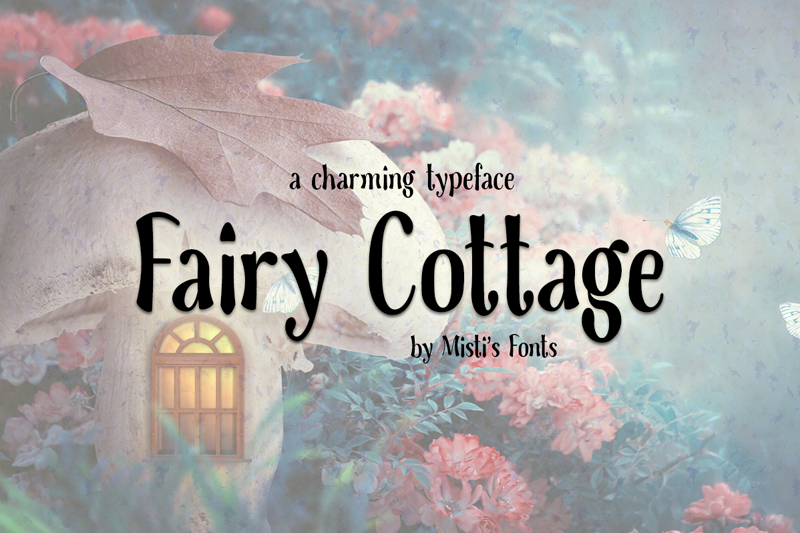
Font name: | Fairy Cottage |
Fairy Cottage is a charming display font. Whether you use it for cartoon related designs, children games or just any creation that requires a lovely touch, this font will be an amazing choice. Terms Of Use and Commercial Licensing: https://mistifonts.com/fairy-cottage/ |